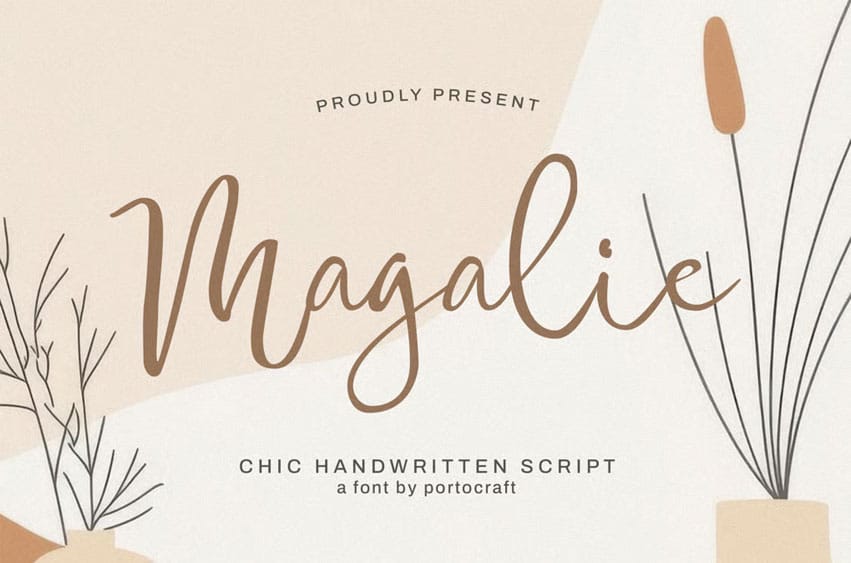
Magalie Font is a chic handwritten script font that embodies elegance and modern charm. With its smooth curves and natural flow, Magalie is perfect for projects that need a touch of sophistication and personality.
This script font works beautifully for branding, wedding invitations, social media posts, product packaging, logos, greeting cards, quotes, and editorial designs. Its stylish handwritten look makes every project feel warm, authentic, and timeless.
Magalie brings together refined beauty and versatility, making it the ideal choice for designers who want to elevate their creative work with a delicate handwritten touch.